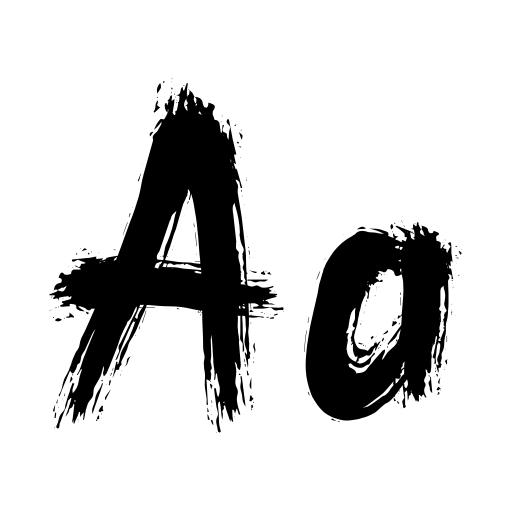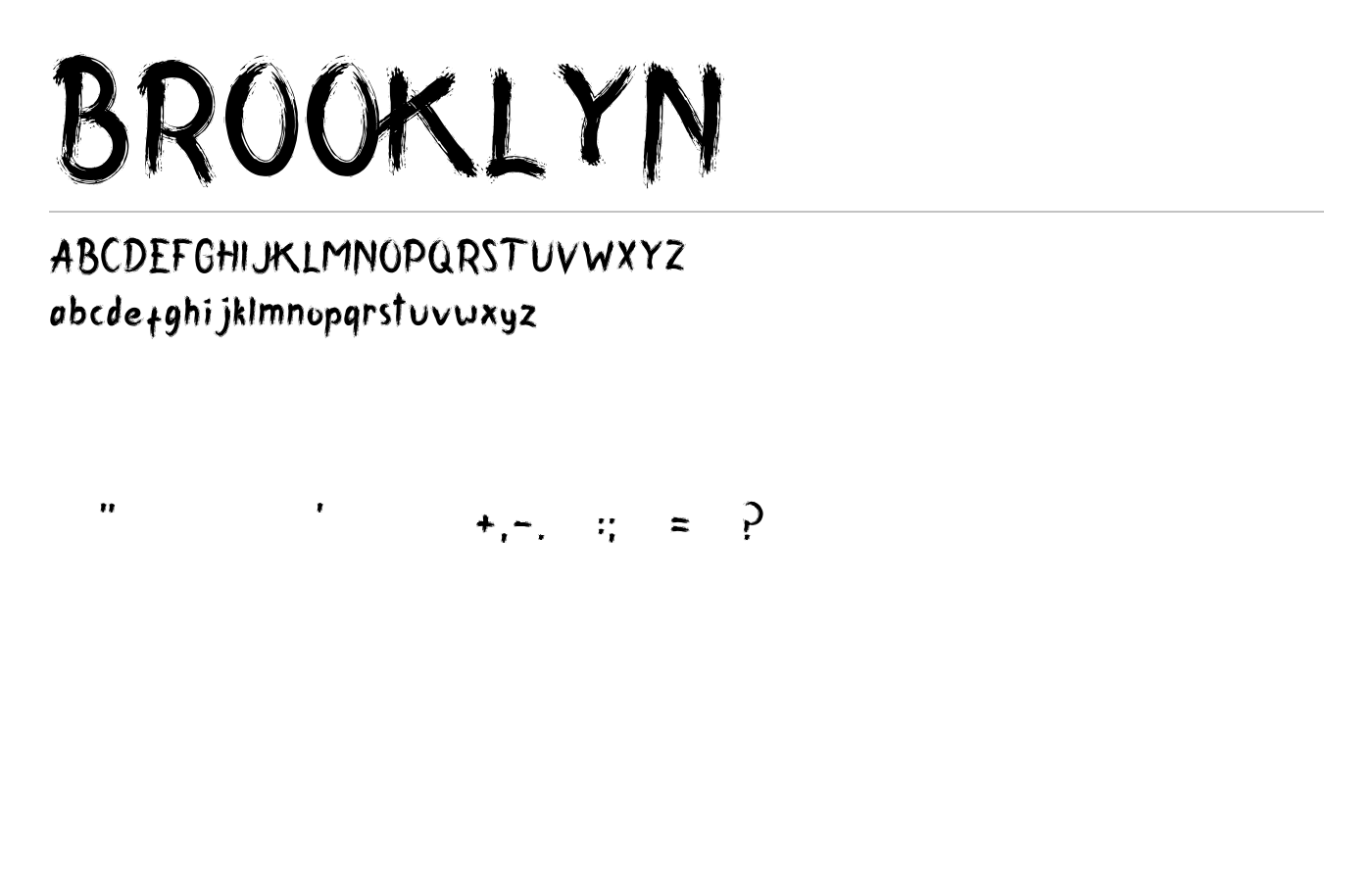
BROOKLYN is a casual, hand-drawn style sans serif font with a rough, brushstroke texture that gives it a raw, artistic personality. Its irregular lines and slightly condensed letterforms create an energetic and informal vibe, making it ideal for creative projects, urban branding, or expressive headlines. This font works well where a unique, dynamic, and handcrafted feel is desired to capture attention and convey individuality.
BROOKLYN Font
About BROOKLYN Font